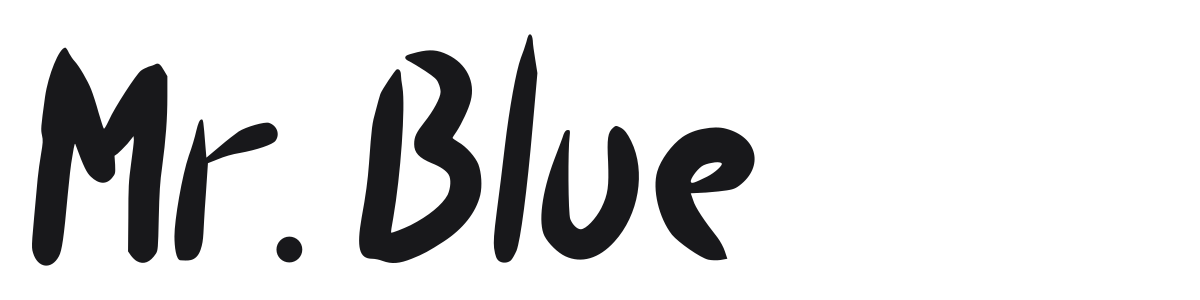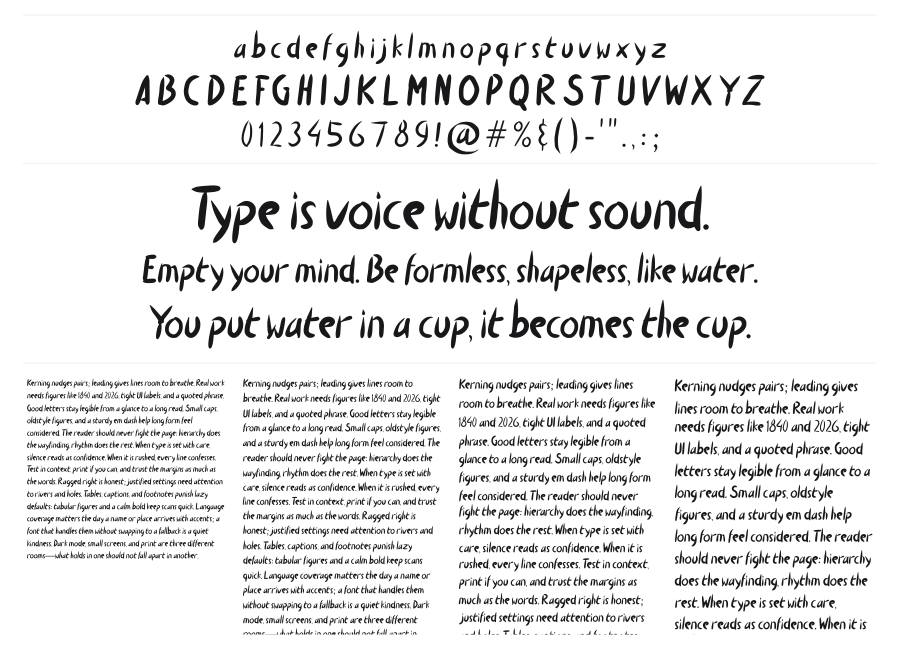
Mr. Blue
by Daniel Tampubolon
Mr. Blue is a bold upright casual script with a loose, hand-drawn quality that feels like quick marker lettering. The irregular stroke endings and subtle wobble in each character give it warmth and spontaneity without tipping into sloppiness. It carries energy at large sizes, making it a natural choice for headlines, posters, and informal branding.